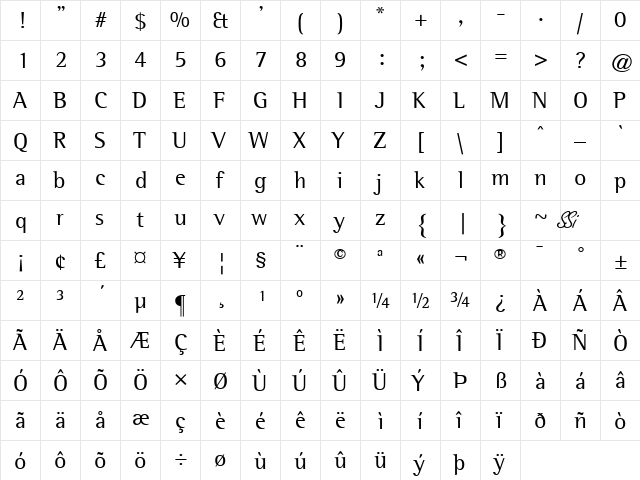
Libre Semi Serif SSi Regular
Design Context for Libre Semi Serif SSi Typeface
Libre Semi Serif SSi carries the refined structure of traditional serif typography, with bracketed terminals and considered proportions that communicate credibility and craft.
Pro Tip: Set Libre Semi Serif SSi with slightly loose tracking in headlines to let each letterform's detail read clearly at display sizes.